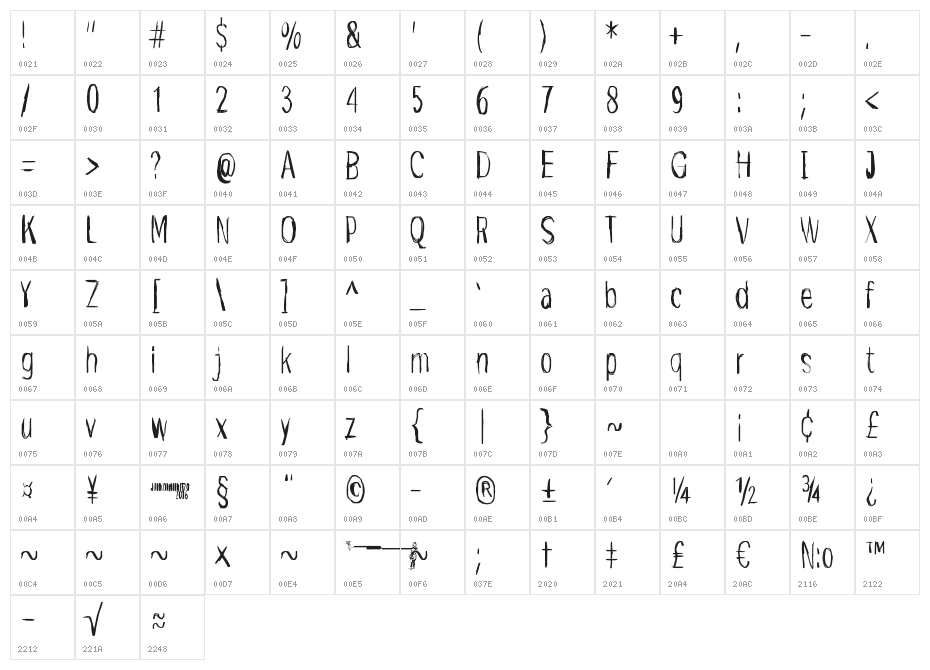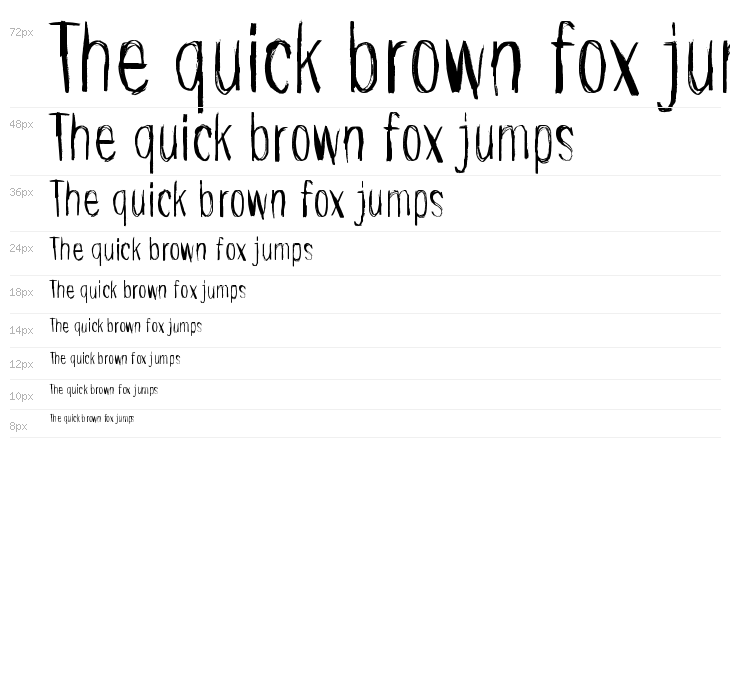
Edge Font
Edge Description
This font features a bold and expressive style with a hand-drawn appearance. The characters are uneven and slightly distorted, giving them a raw, artistic feel. The strokes vary in thickness, adding a dynamic and energetic quality to the text. The uppercase and lowercase letters maintain a consistent style, while the numerals and special characters complement the overall design. This font is perfect for projects that require a creative and unconventional look, such as posters, album covers, or artistic branding.
| Overall Style | Artistic, Expressive |
| Proposed Projects | Ideal for creative projects like posters, album covers, artistic branding, and unique advertising campaigns. |